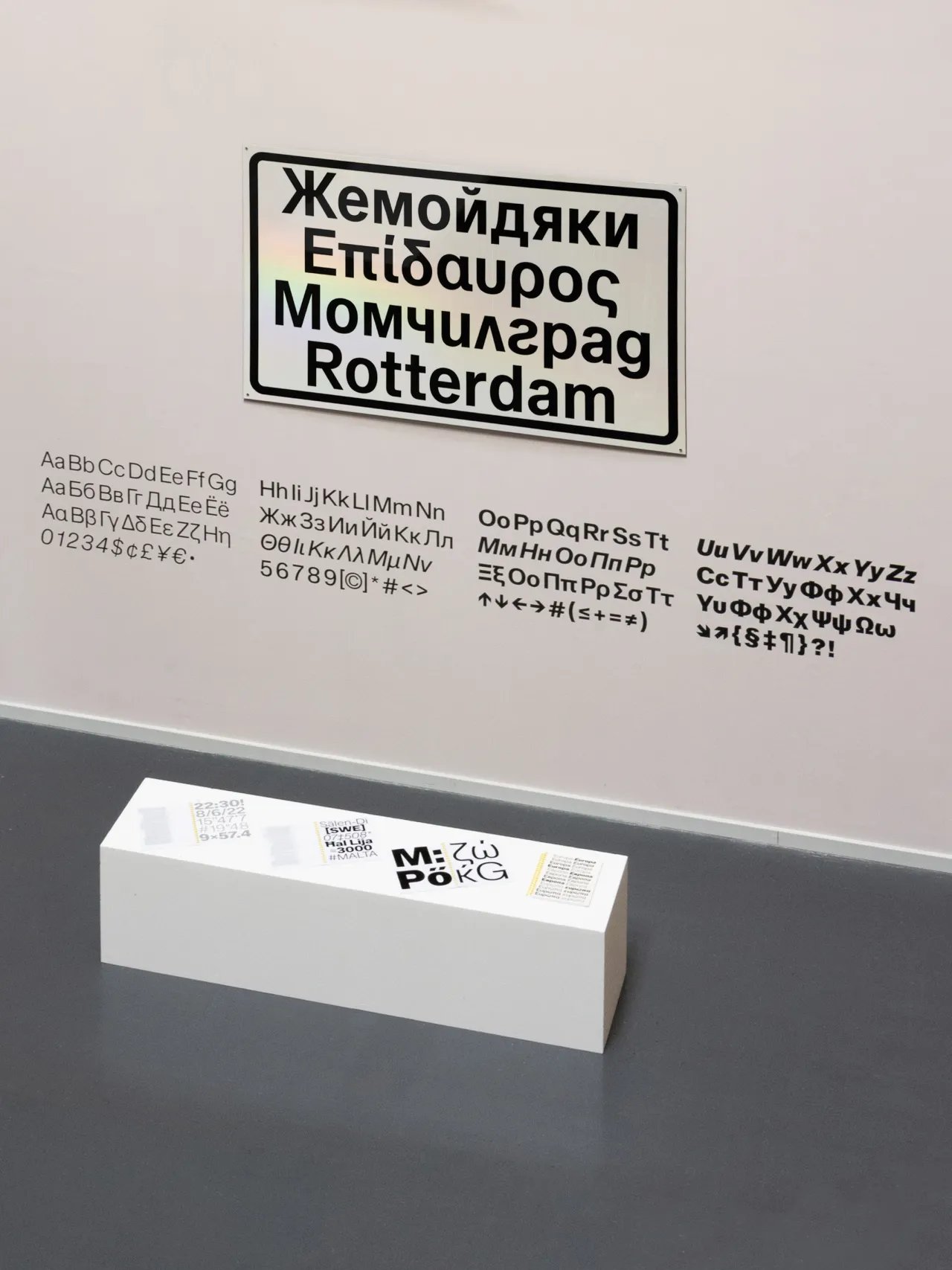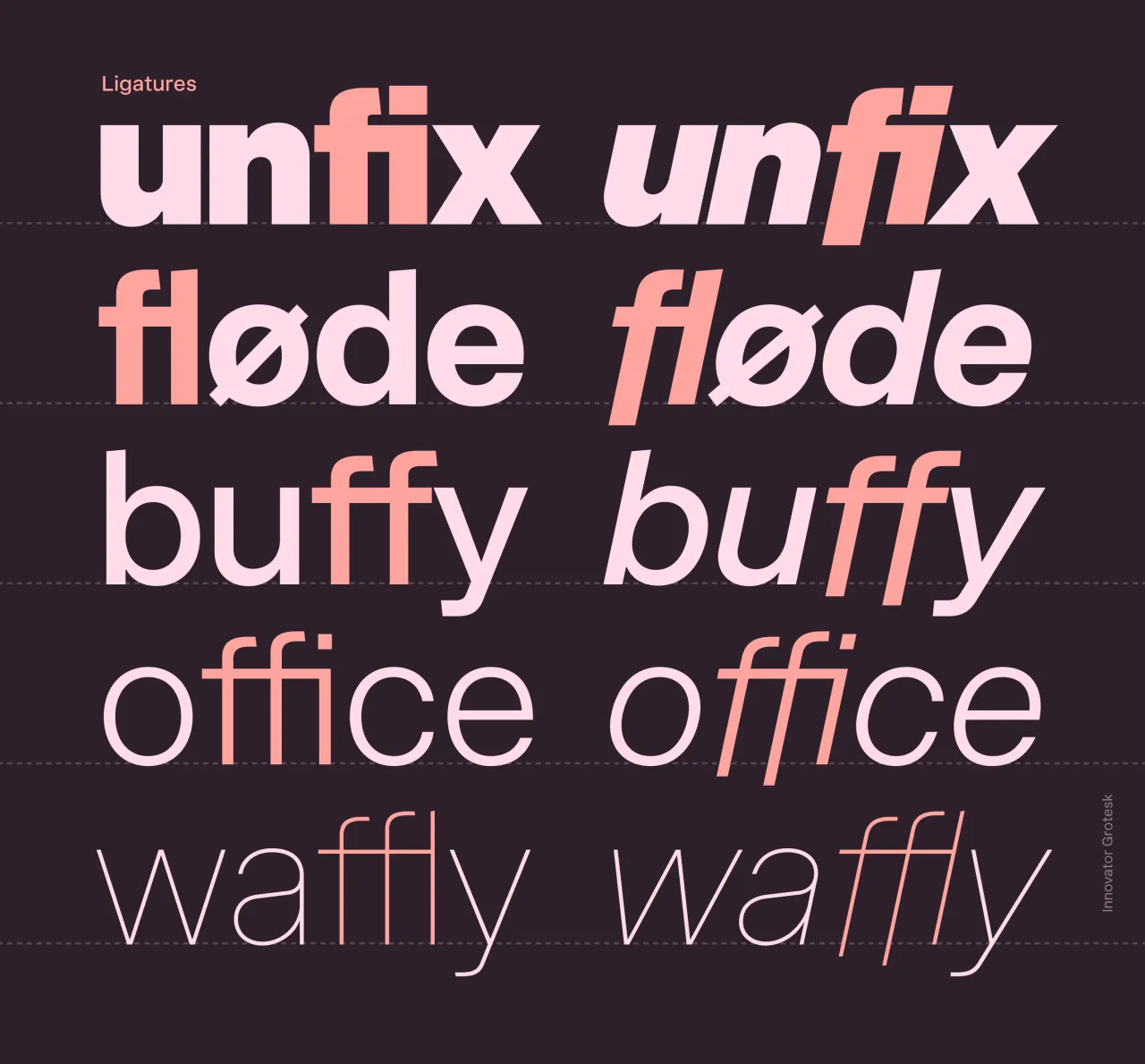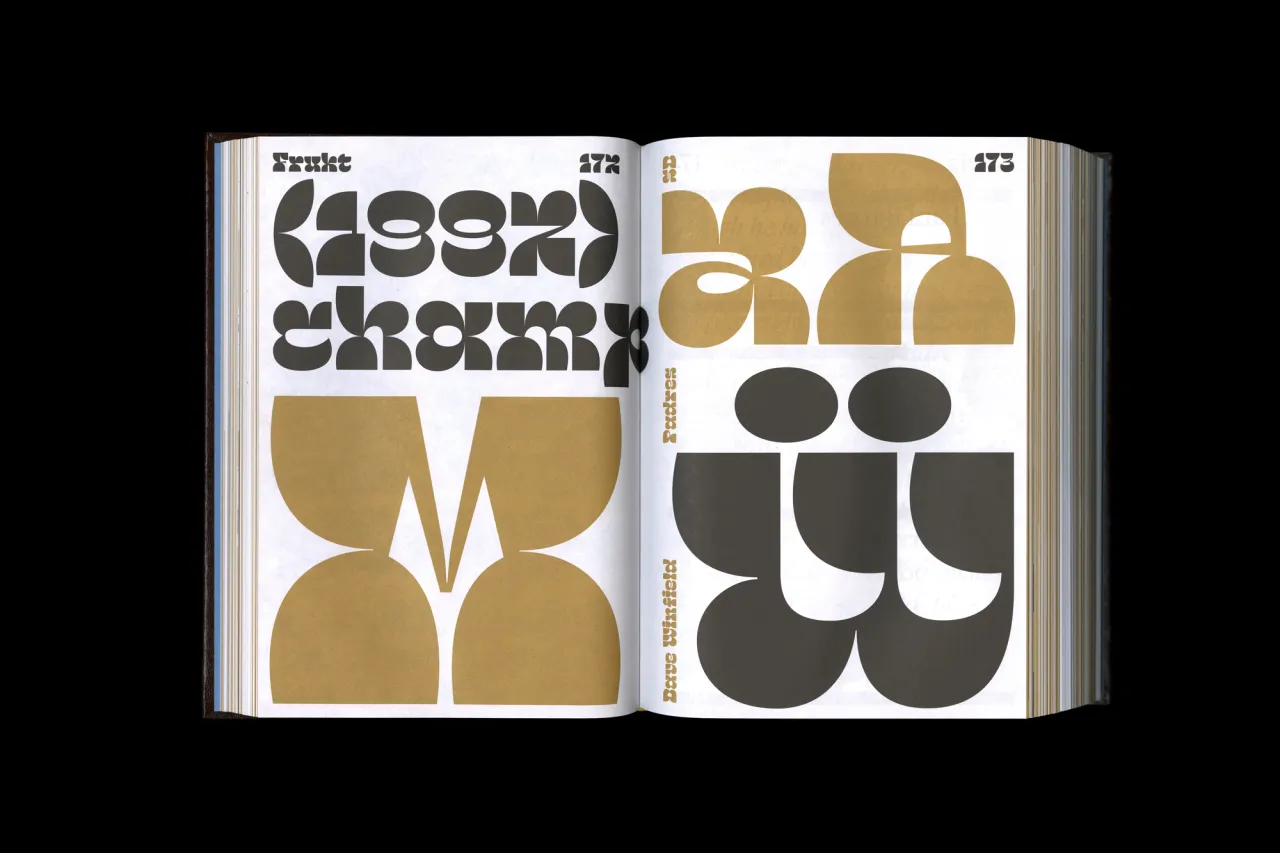
Graphic designers share their top tips for choosing the right fonts
Selecting the perfect typeface for your design projects couldn't be more important. Graphic designers share their expert insights on how to do so.
As anyone who's been a graphic designer for more than a few days will know, selecting the perfect font for a project is crucial. The right typeface can bring a brand to life, enhance readability and accessibility, and convey your intended message with clarity and style. So it's worth considering how you go about it.
In this article, we'll delve into the nuances of font selection, exploring everything from aesthetic considerations to technical issues, as well as costly licensing pitfalls.
Whether you're a seasoned designer looking to refine your approach or a newcomer seeking to understand the fundamentals, these expert tips will help you make more informed and effective font choices.
1. Understand the brand personality
Before diving into font selection, it's essential to have a clear understanding of the brand's personality and values. "Fonts are a key memory structure in building brand recognition," notes Darren Richardson, co-founder and creative director at Gardiner Richardson. "So the more it can amplify the archetypal character of the brand, the better. Think of it as the brand's handwriting. The challenge is balancing distinctiveness over the practicalities of cost and usage."
If you're struggling to find a font that ticks those boxes, it can help to look for brands with similar approaches and see what fonts they're using. That doesn't mean you necessarily copy them, but it's a good starting place all the same.
"Check Fonts in Use to see where the typefaces you like have appeared in context before," suggests brand and design director Alexandra Lunn. "Align any font you choose with your brand's personality."
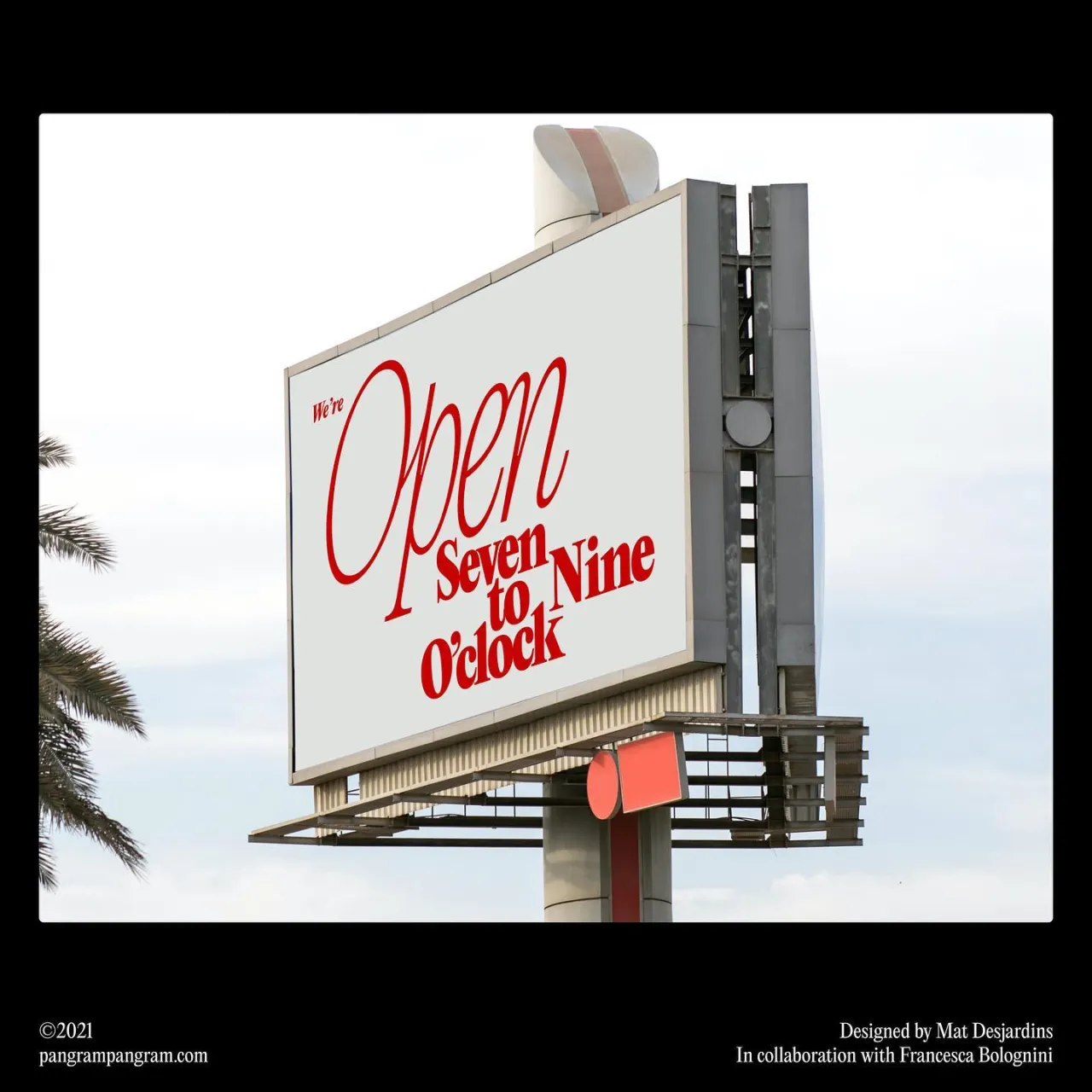
PP Editorial New by Pangram Pangram
2. Prioritise legibility and readability
While choosing a font solely based on its aesthetic appeal is tempting, legibility and readability should always be your priorities. "Beautiful type doesn't always mean accessible type," points out Grace Ellins, senior graphic designer at the Office for National Statistics. "So for me, it's all about finding a typeface that has accessible characters; language considerations – especially for Welsh; extended x height, for ease of reading at smaller font sizes, and a range of weights to help emphasise content where appropriate."
That said, the relative importance of readability will vary on the use case. Referring to web projects, product designer Stan Potra suggests that: "if the font is for UI and masses of text, aim for readability and variability for hierarchy and accents. But if it's for decorative purposes, go wild." He adds, "A general rule is that the font should be as lightweight as possible and look the same across all platforms and devices".
3. Consider technical aspects
When selecting fonts, it's crucial to keep technical considerations in mind. "I've worked with clients who already have an established brand typeface which doesn't have the things it needs," reveals independent typographic designer Sarah Cowan. "Missing an italic or small caps is surprisingly common, but if you're aiming for typographic refinement, not having things like tabular or superior numerals when you need them can limit the quality of the result."
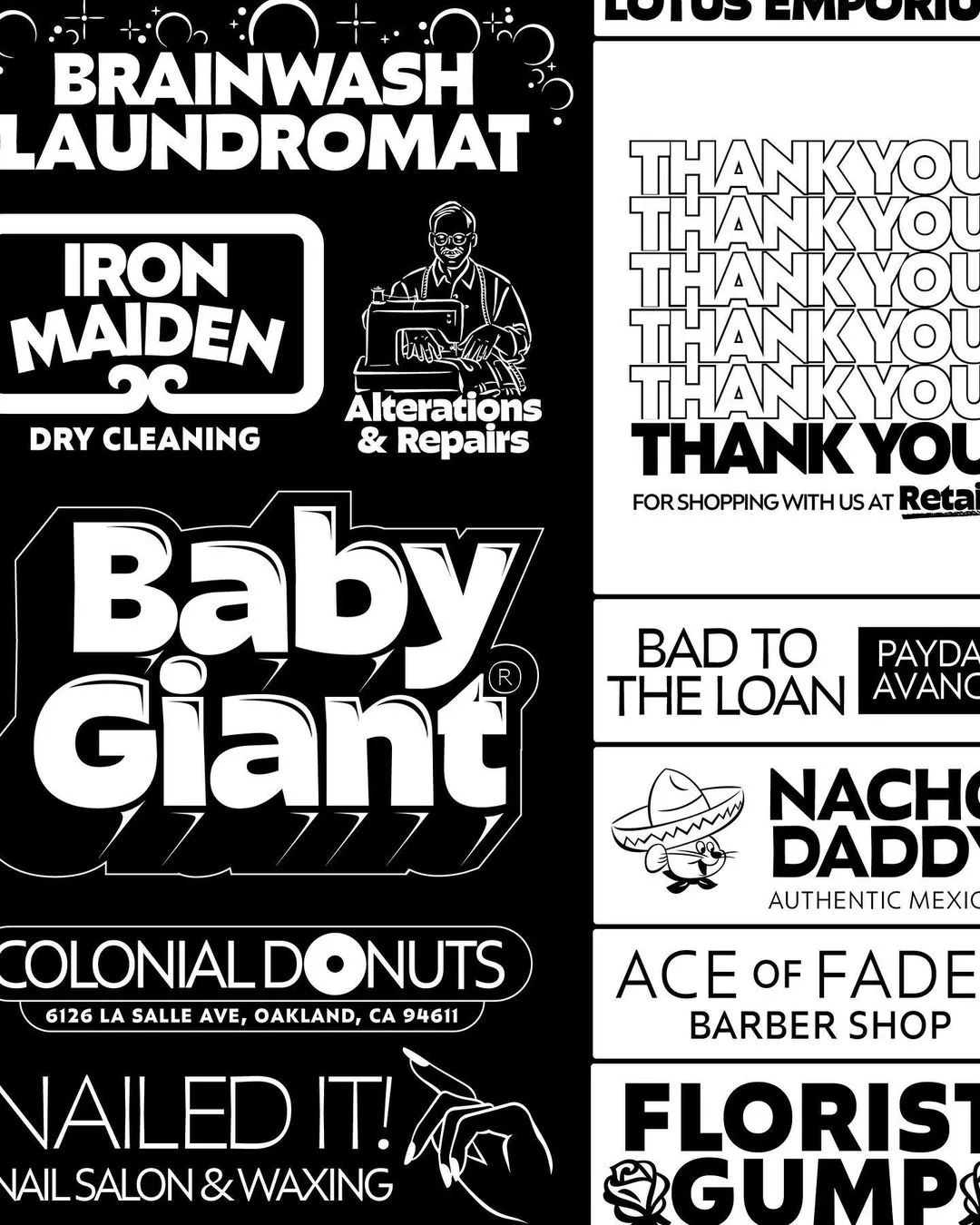
Retail by OH no Type Co.
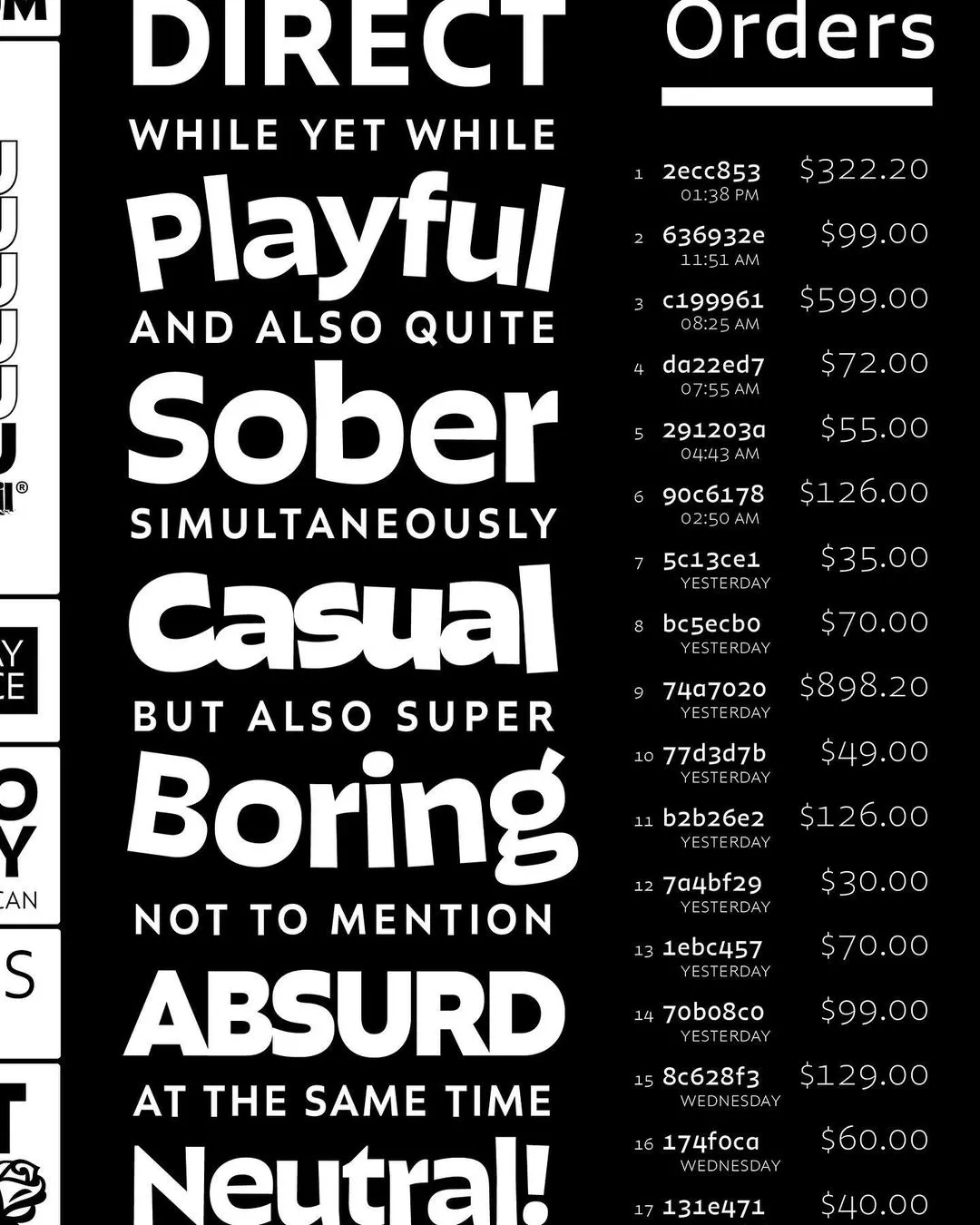
Retail by OH no Type Co.
Graphic design specialist Khurram Shahzad adds: "I focus on kerning, leading, and tracking to ensure the text looks balanced. For the web, I also check font loading speed and cross-device compatibility."
Brand builder Lyndon Gehman echoes this point, urging you to "always check the typeface for kerning issues, especially when choosing a typeface from a lesser known, less experienced type designer. I've had a few cases where I liked the character of a typeface but discovered it had some kerning issues between certain letter pairs, making it a bad choice for a brand font."
Graphic designer Caroline Ogden adds another top tip: "Check the '@' to see how well it works. Some fonts have some very odd interpretations of it."
4. Try before you buy
One of the tricky things about typefaces is that their quirks often don't reveal themselves until you've started using them. So Daan Hornstra, co-founder and brand design lead at TIN, is a big fan of "try before you buy".
"Download font trials from your favourite foundries and create a visual overview using tools like Figma or Illustrator," he recommends. "This makes it easy to select the right fonts when working on a project.